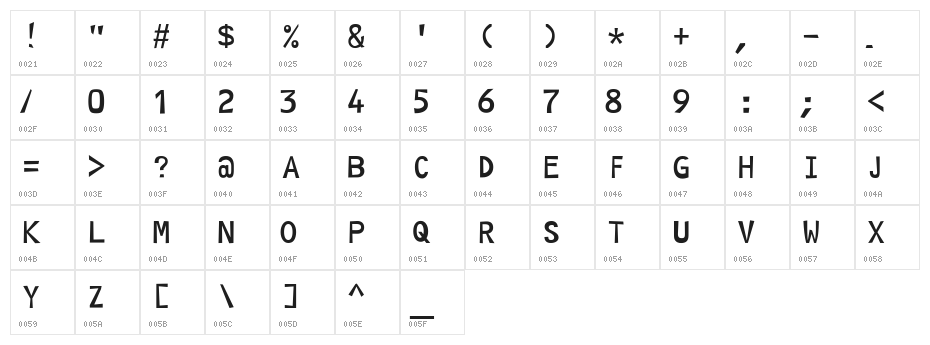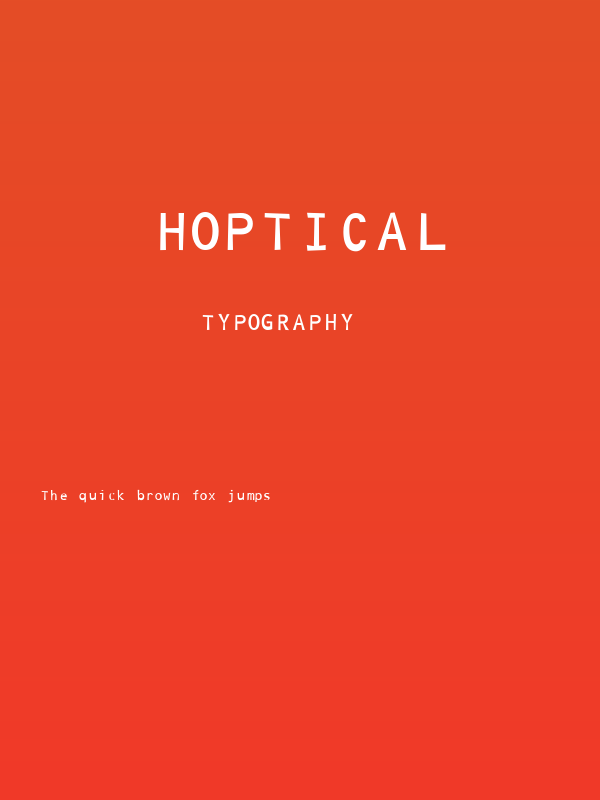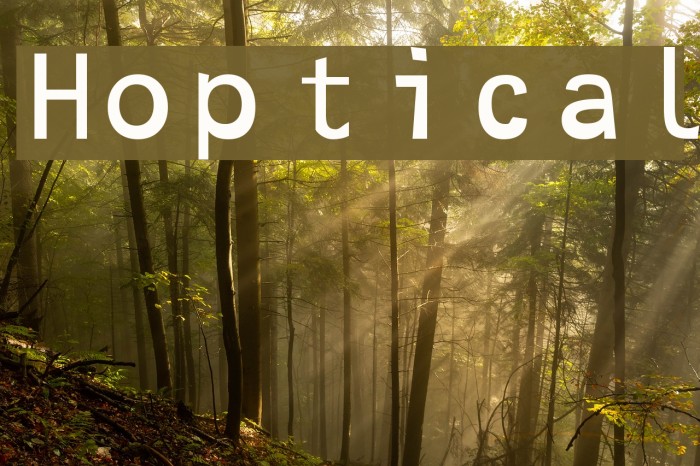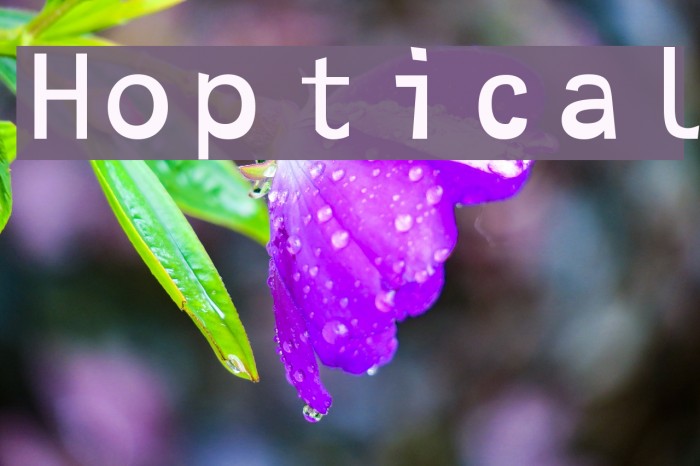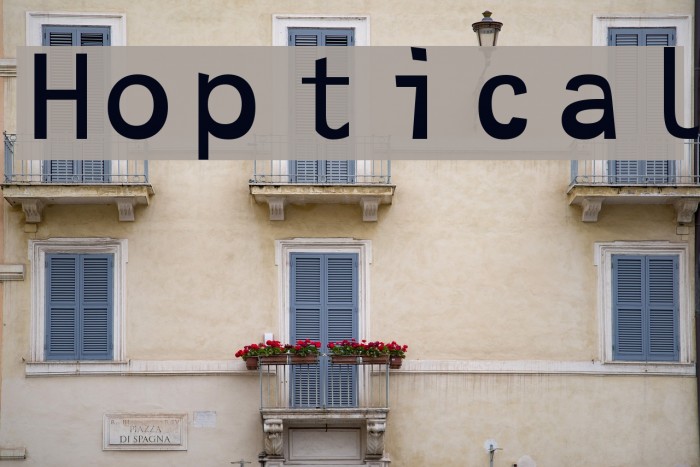
Hoptical Font
Hoptical Description
This font features a clean and modern sans-serif style with a geometric structure. The characters are uniform and balanced, providing a sense of clarity and precision. The uppercase letters are bold and impactful, while the lowercase letters maintain a consistent flow with slightly rounded edges. The numerals are straightforward and align well with the overall design, ensuring readability. Special characters are distinct and well-integrated, making this font versatile for various applications. The overall appearance is sleek and professional, suitable for contemporary design needs.
| Proposed Projects | Ideal for branding, digital interfaces, advertising, and editorial design. |